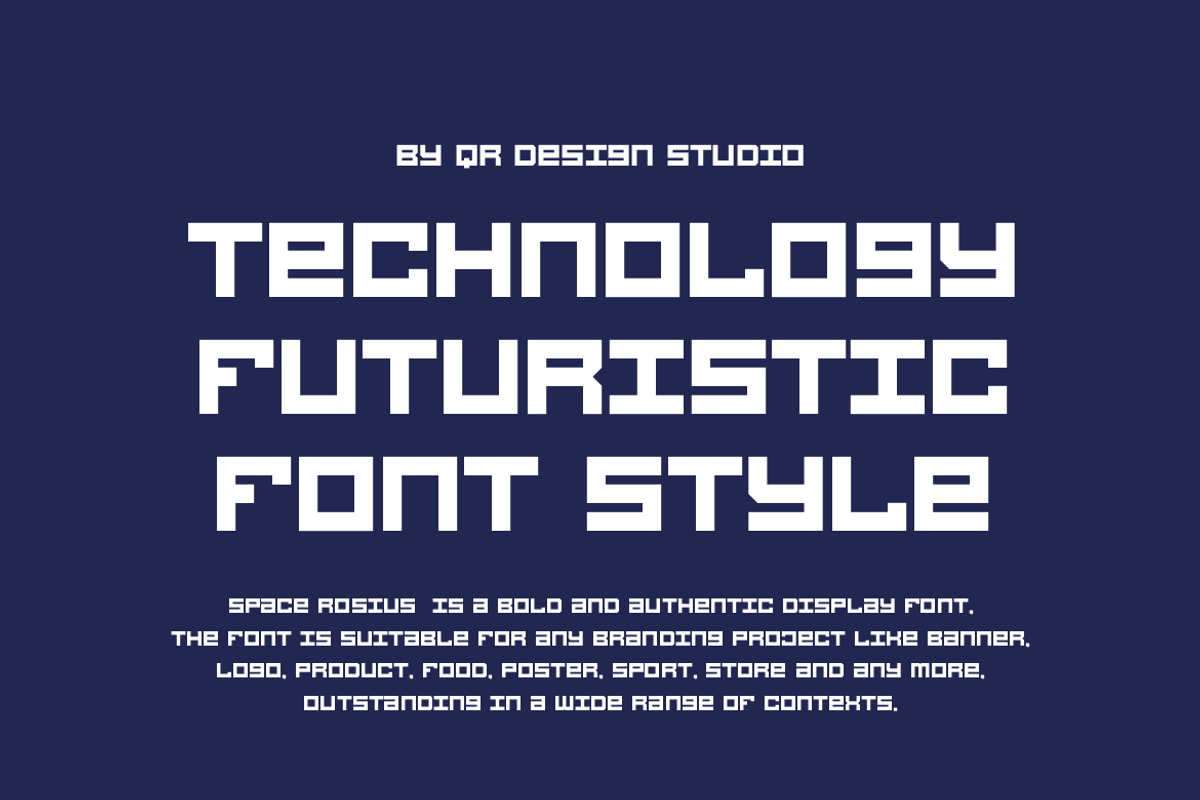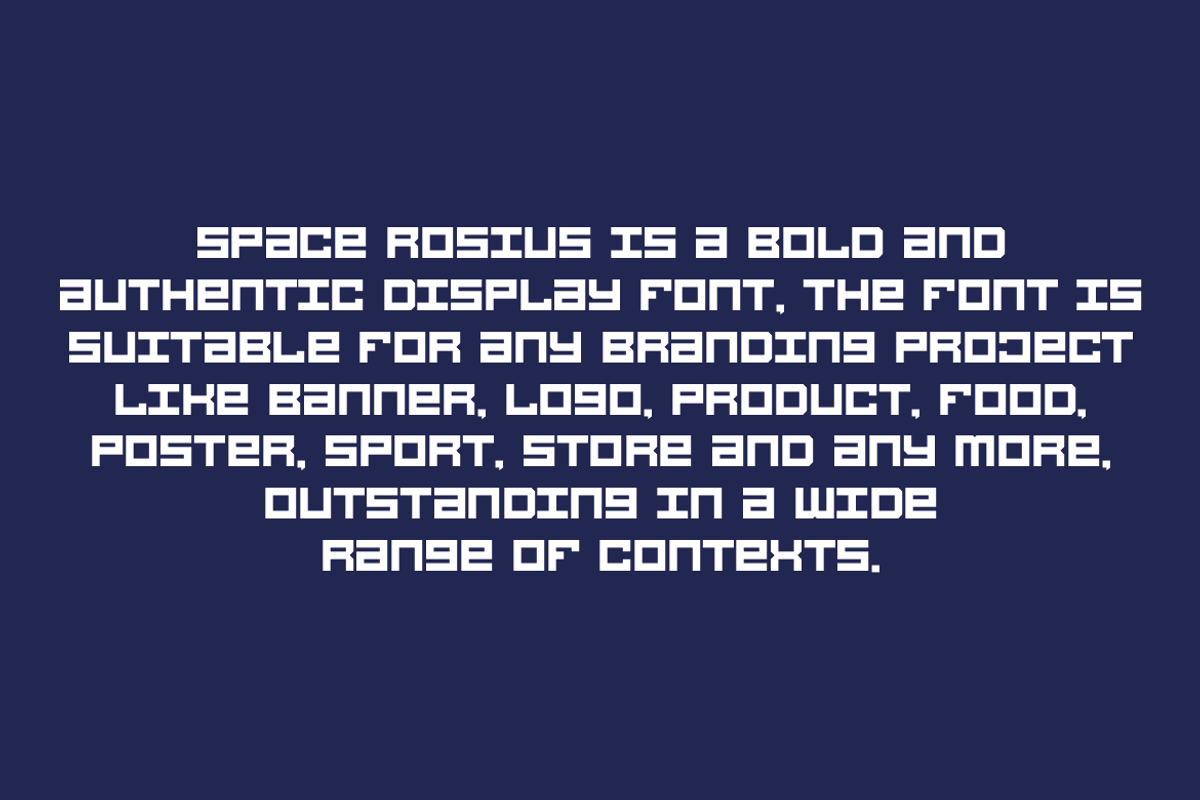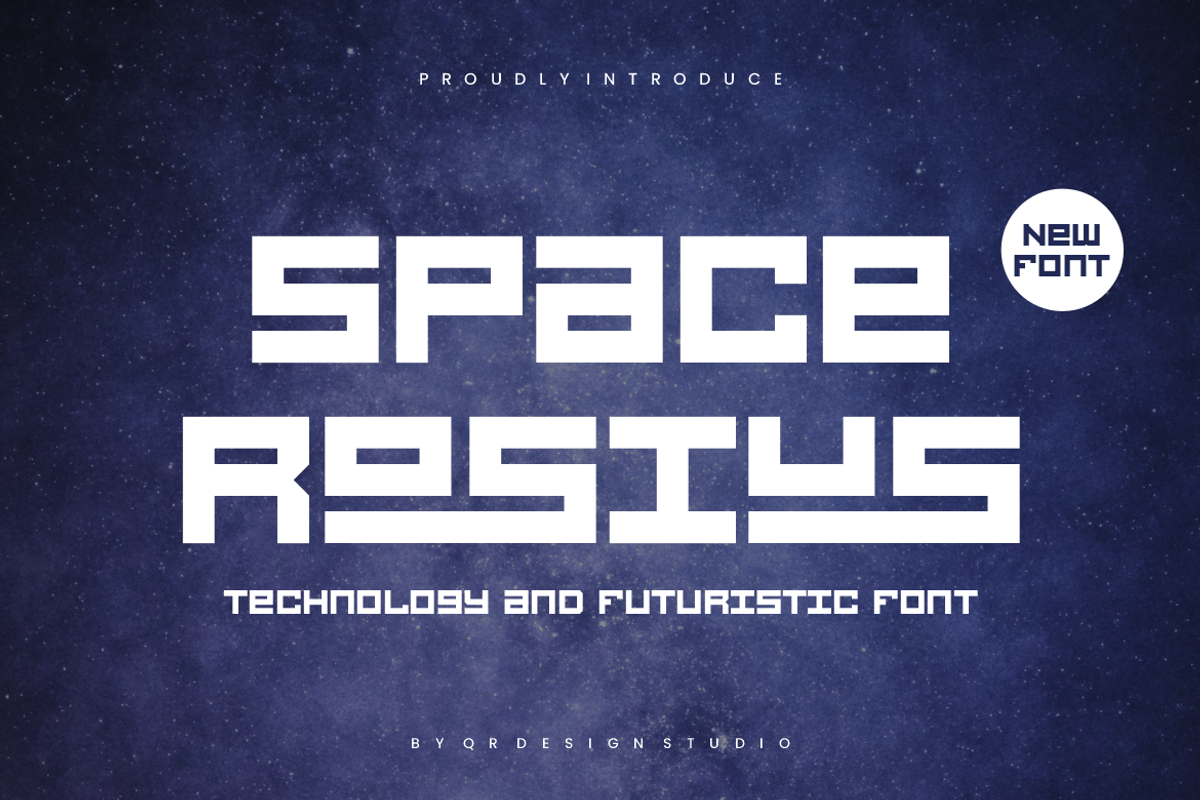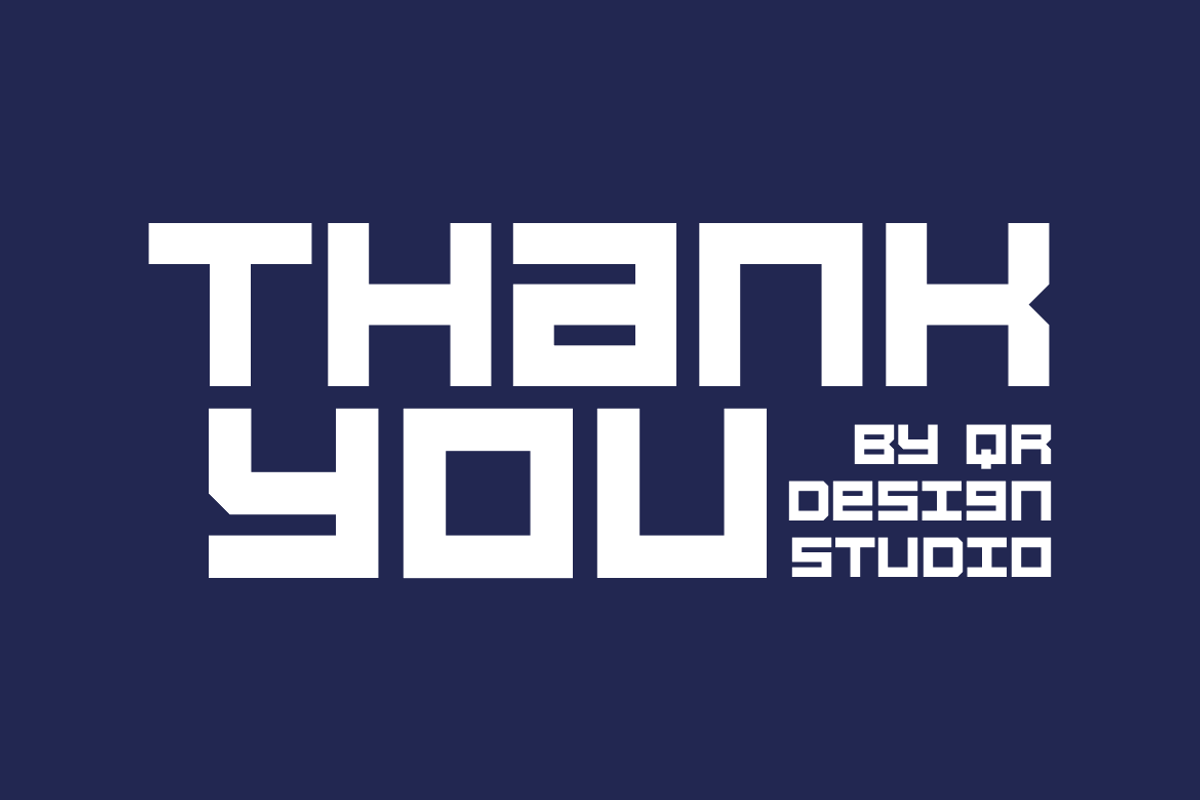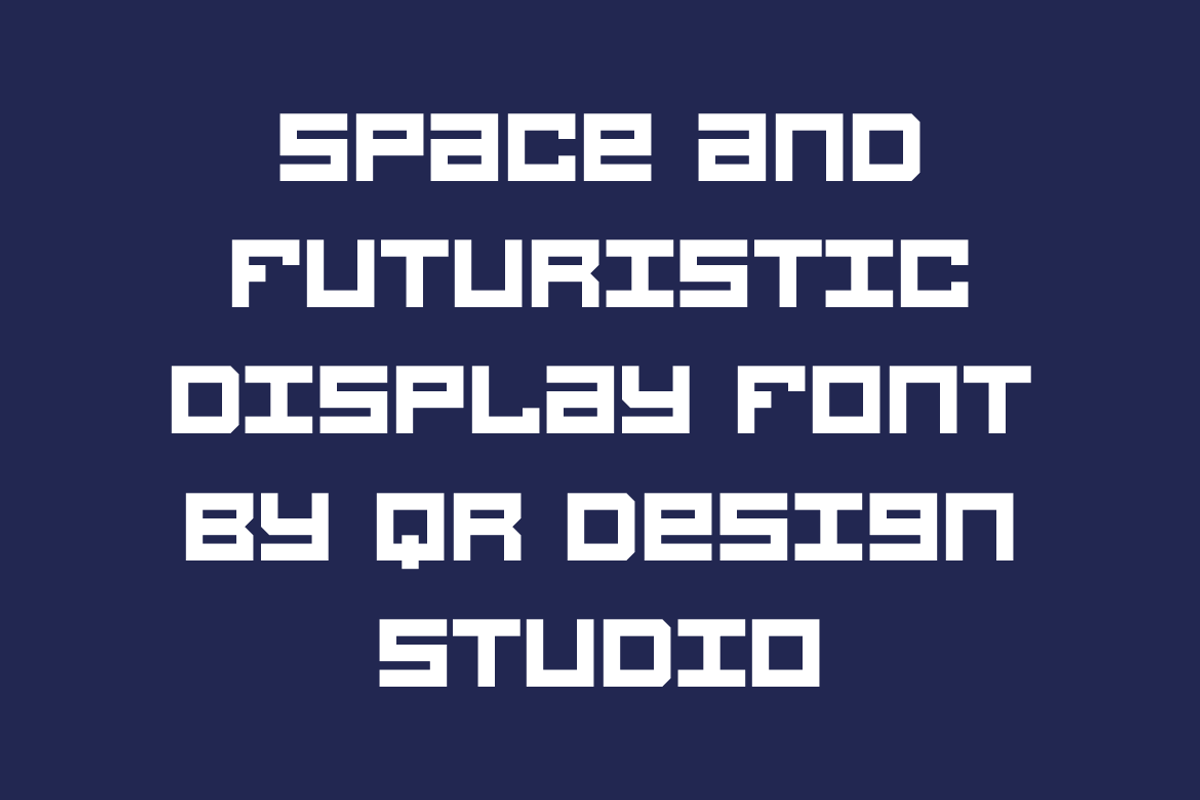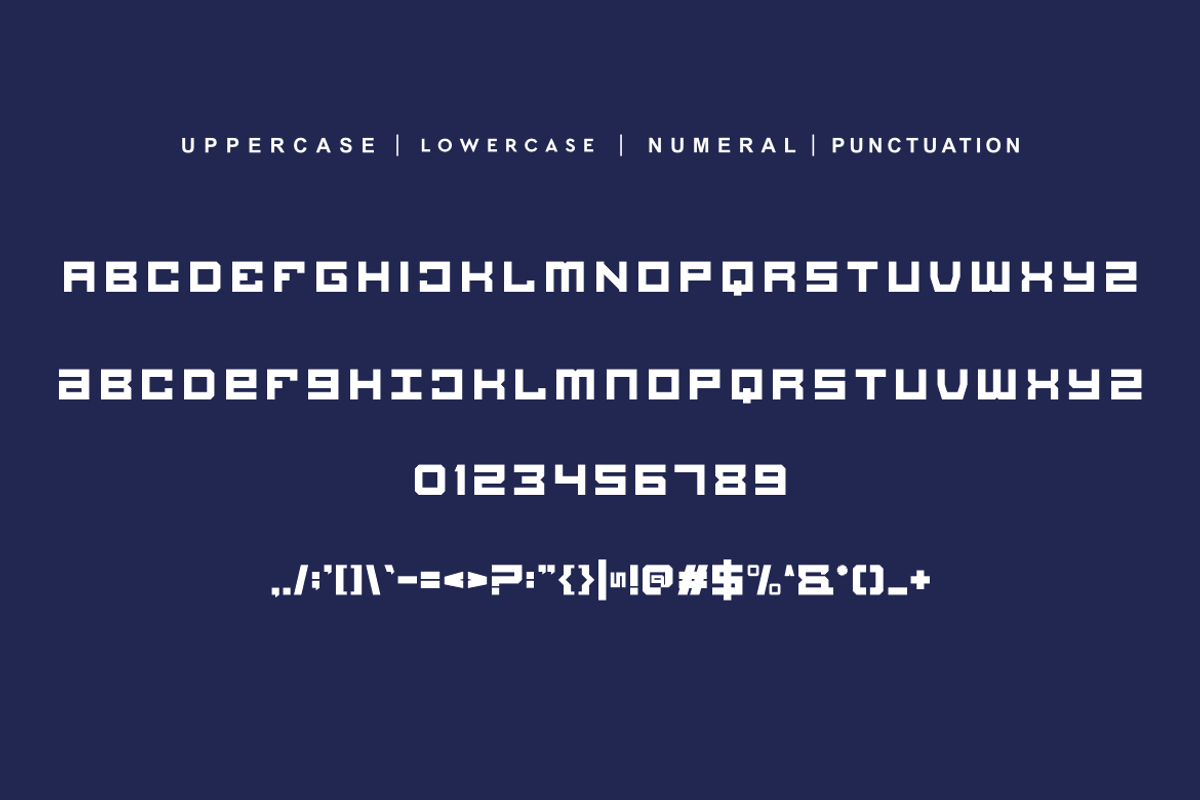
Space Rosius - Tech & Digital Font
Space Rosius - Tech & Digital Font is a bold and authentic display font. The font is suitable for any branding project like poster, logo, sport, and many more. Outstanding in a wide range of contexts.